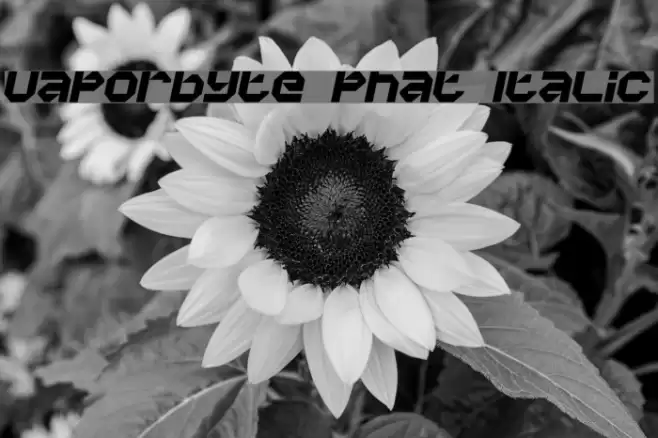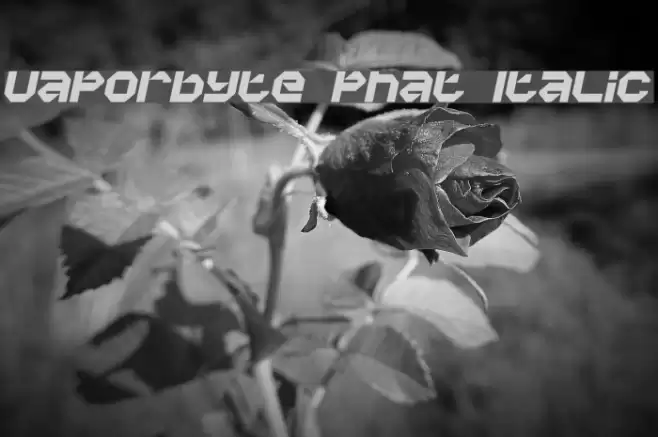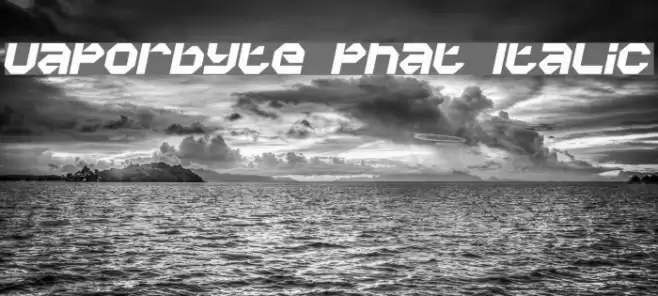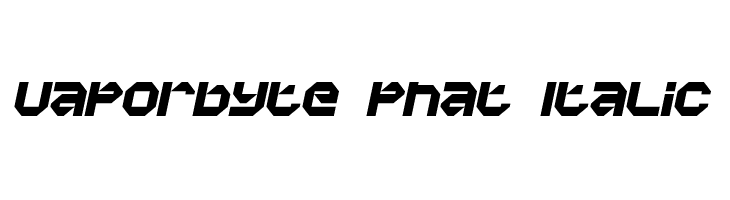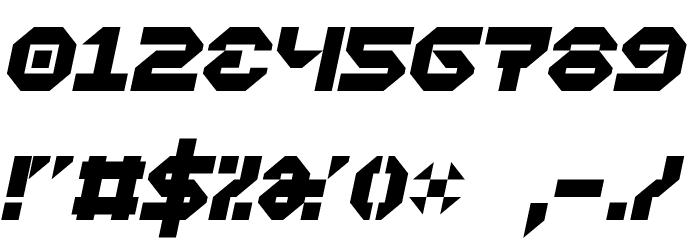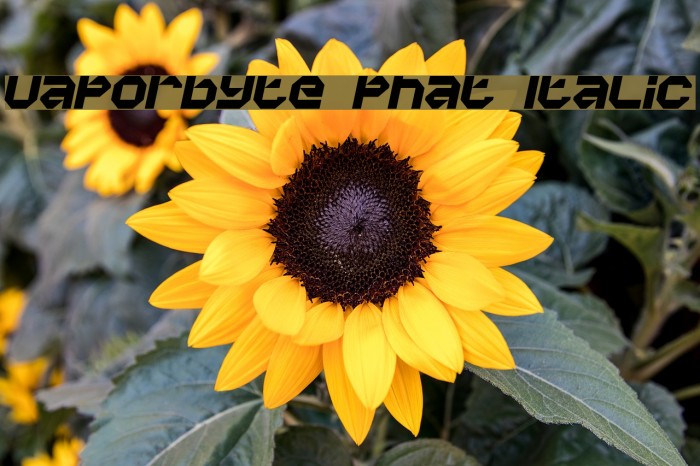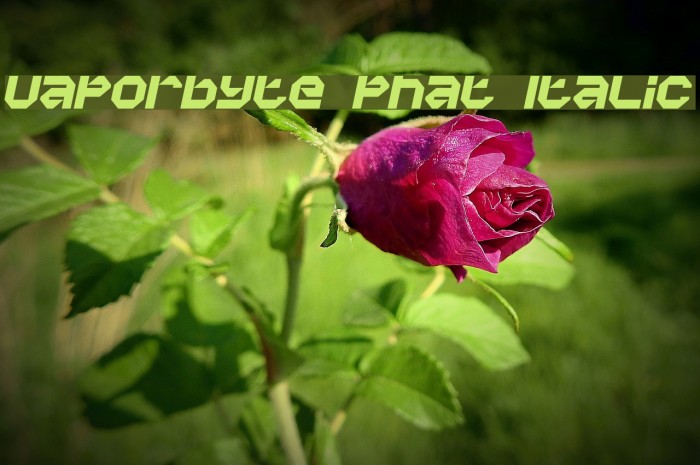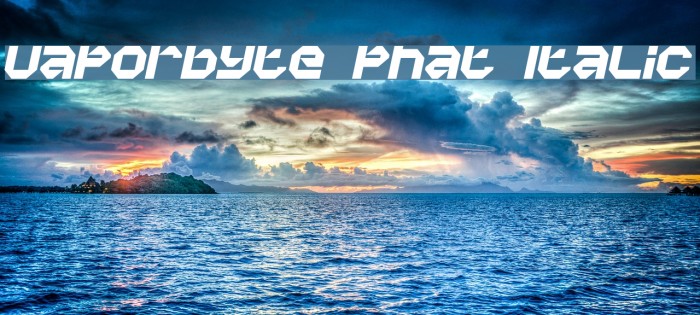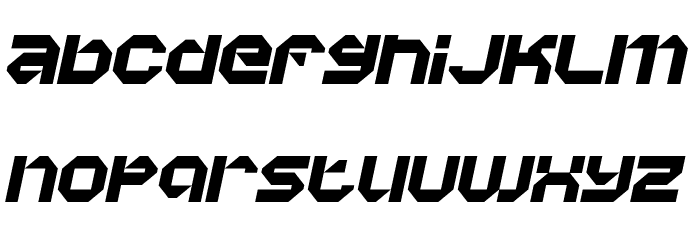
Vaporbyte Phat Italic Font
Vaporbyte Phat Italic Description
This font features a bold, futuristic design with angular and geometric shapes. The characters are italicized, giving them a dynamic and forward-leaning appearance. The style is reminiscent of digital or cyberpunk aesthetics, with a strong emphasis on sharp edges and a blocky structure. The uppercase and lowercase letters maintain a consistent style, while the numerals and special characters complement the overall theme. The font's unique design makes it stand out, ideal for projects that require a modern and edgy look.
A bold, italicized font with a futuristic, geometric design from Futuristic fonts.
- Proposed Projects: Ideal for video game titles, tech branding, sci-fi posters, and digital media projects.